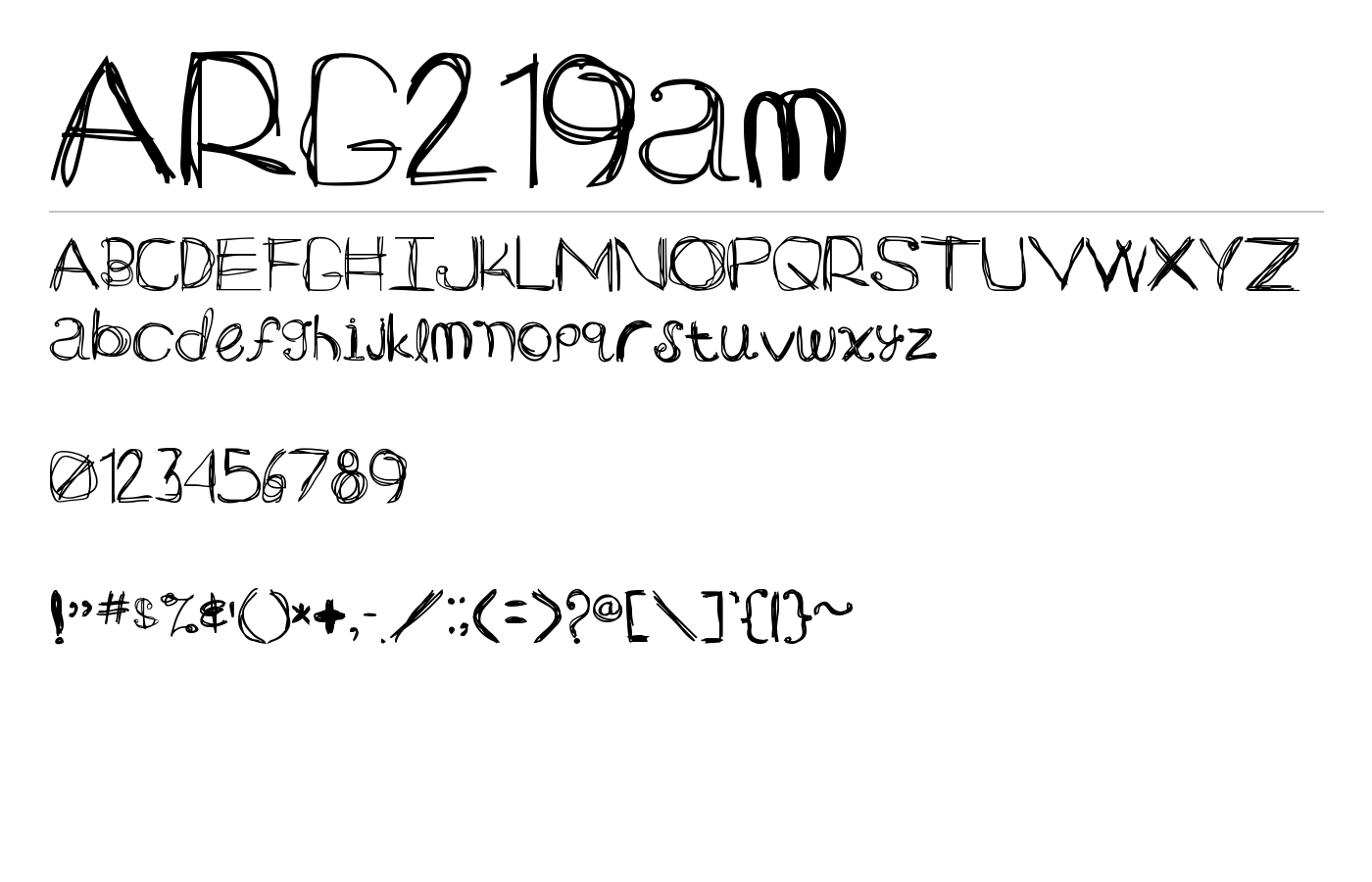
ARG219am is an informal, hand-drawn sans serif font characterized by its playful, irregular lines and sketch-like strokes that give it a lively, creative feel. With its light weight and airy spacing, it works well for designs that seek a casual, artistic vibe, making it perfect for personal projects, creative branding, or fun headlines. This font’s quirky letterforms add personality and charm, ideal for adding an eye-catching, handcrafted touch to your work.
ARG219am Font